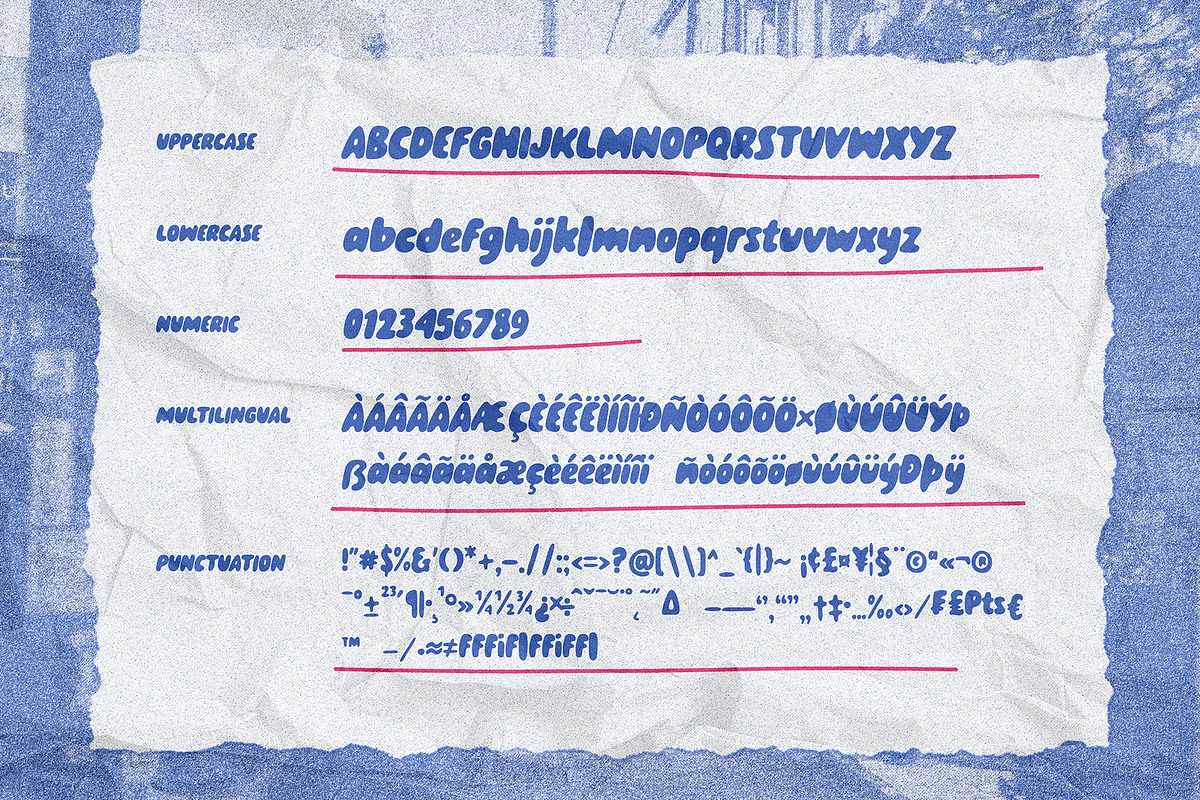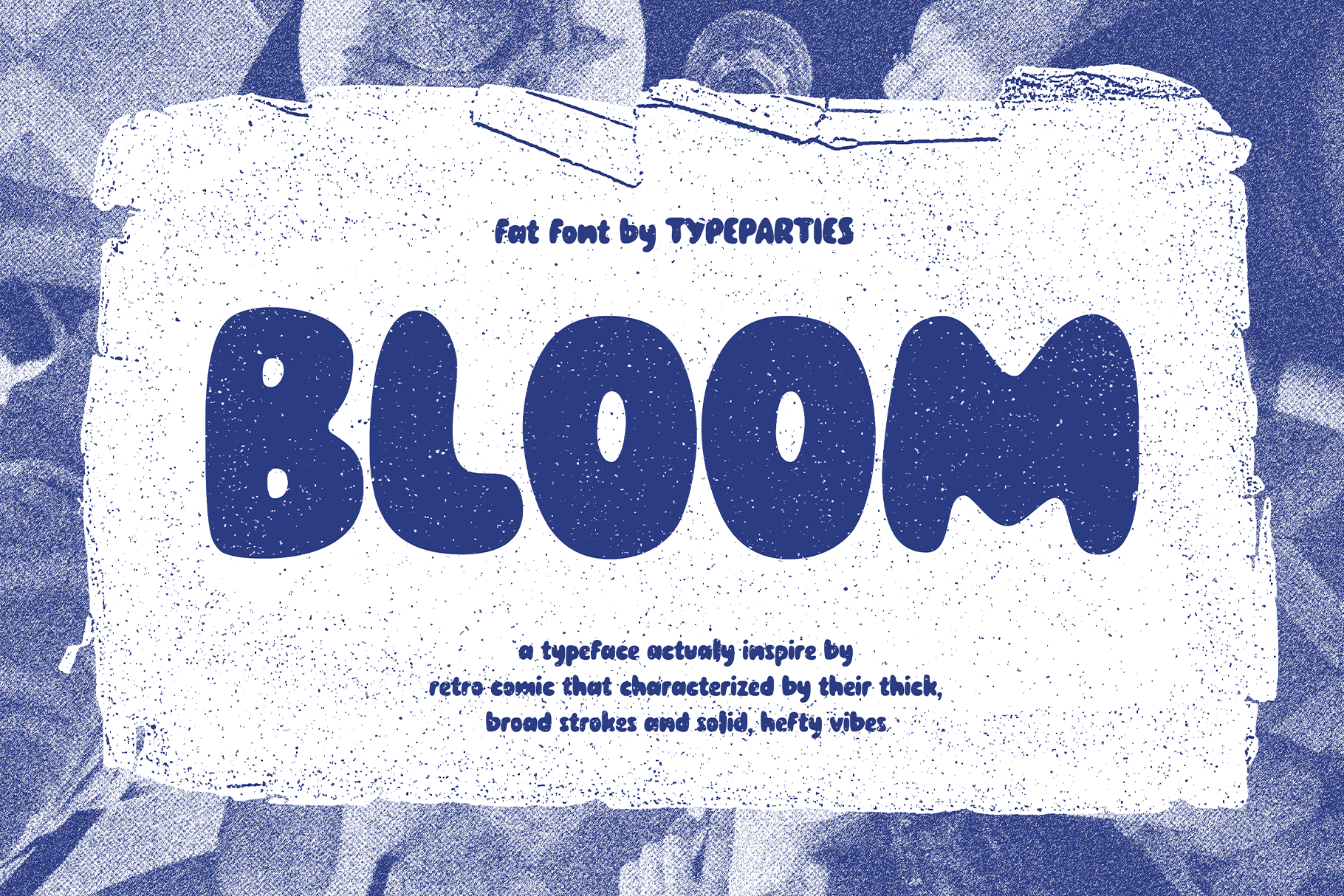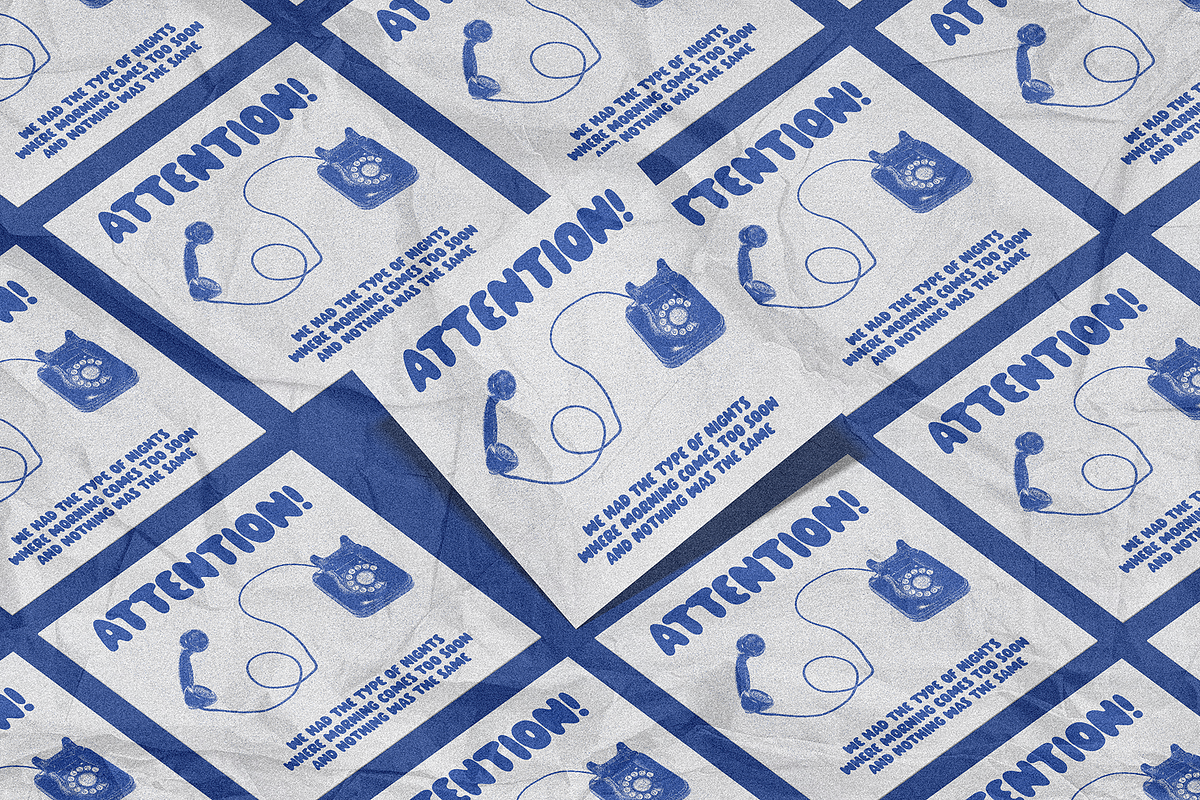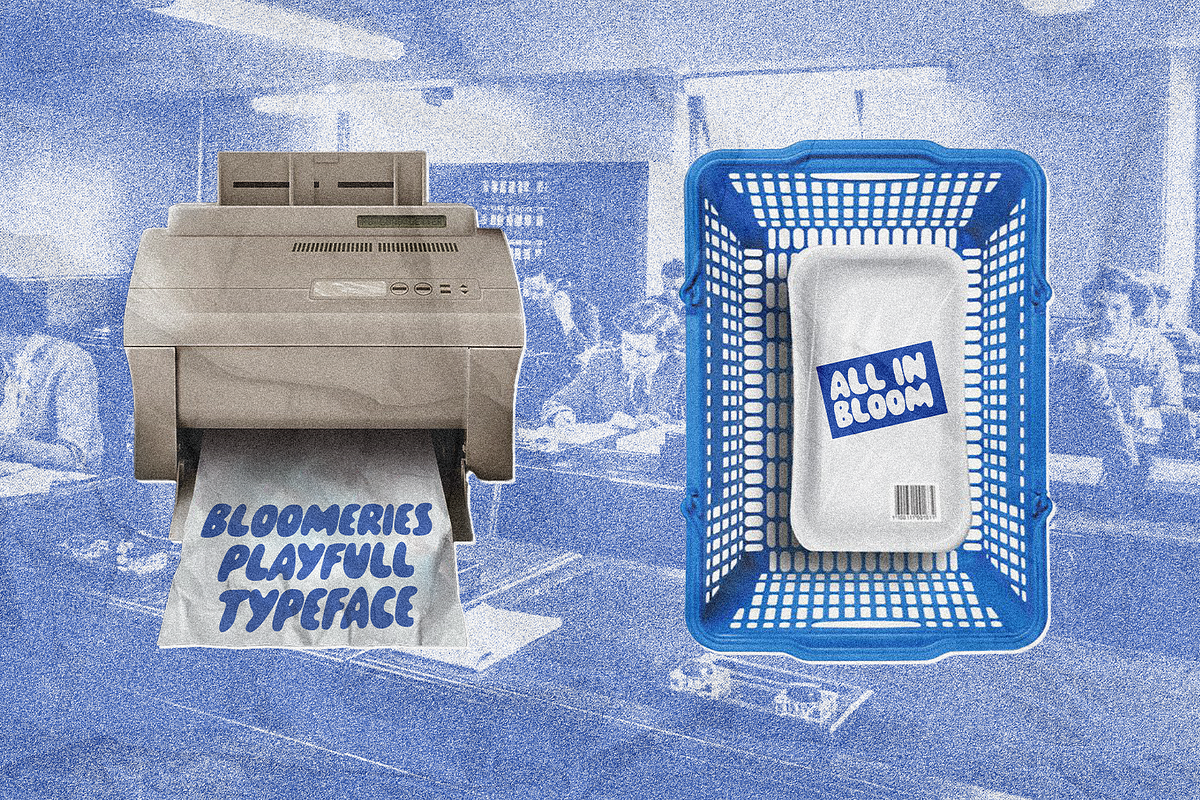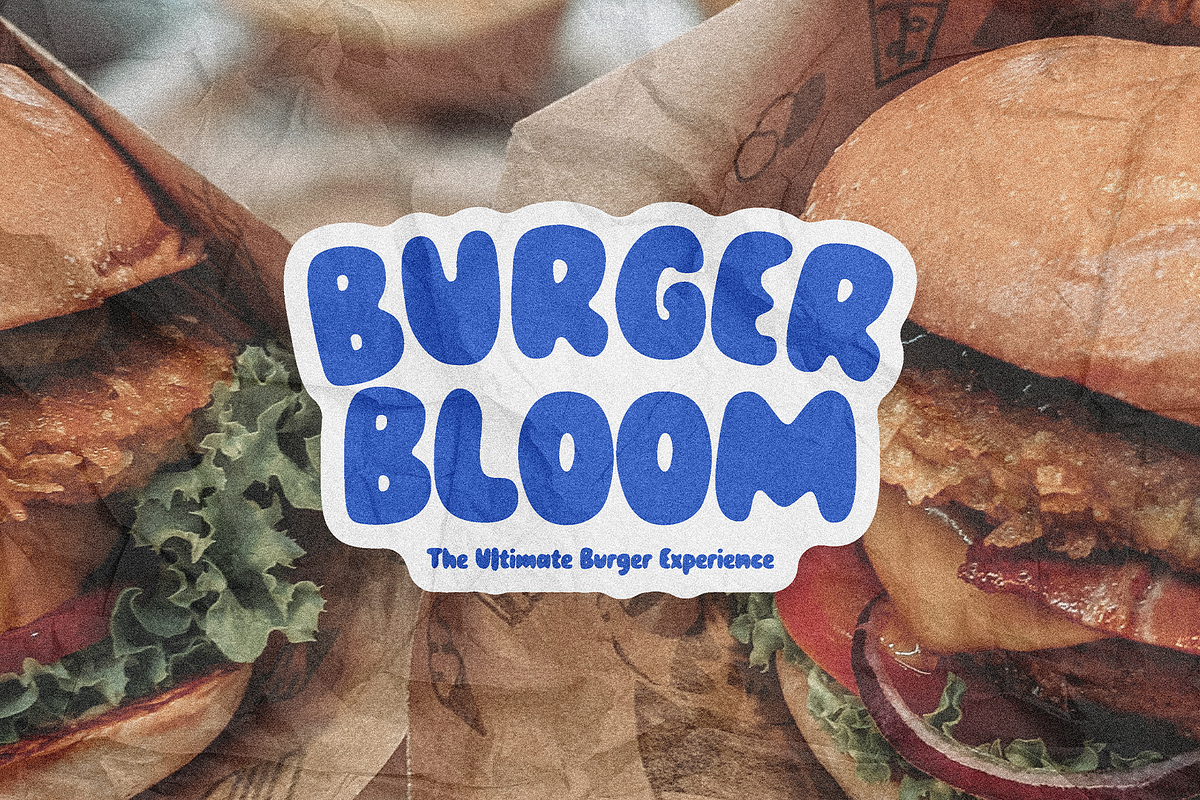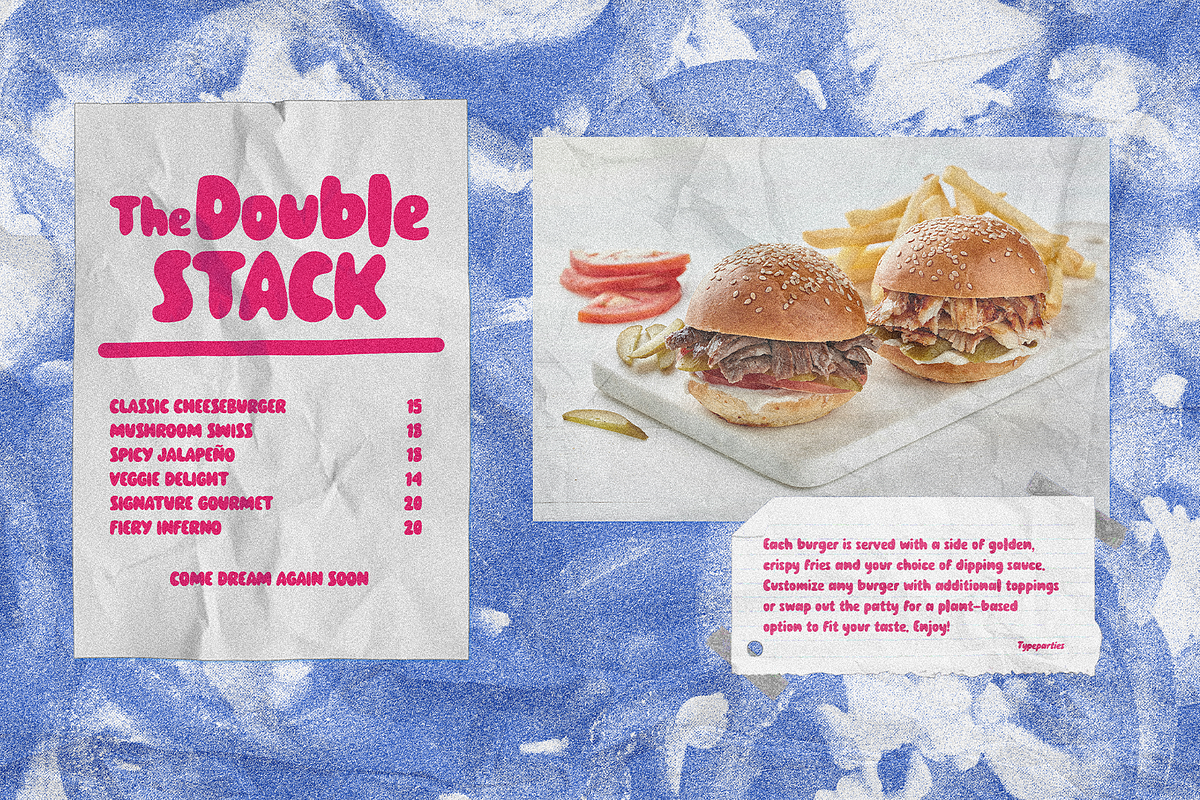
Bloomeries Font
A Bloomeries font bursts with personality and energy, combining strong, thick lines with whimsical, creative touches. Its rounded edges and exaggerated curves make each letter feel lively and dynamic, exuding a sense of fun and spontaneity. This typeface often features unexpected twists and playful flourishes that capture attention and invite a smile. Perfect for headlines, children's materials, or anything needing a dose of vibrant charm, this font balances readability with a spirited, joyful flair.